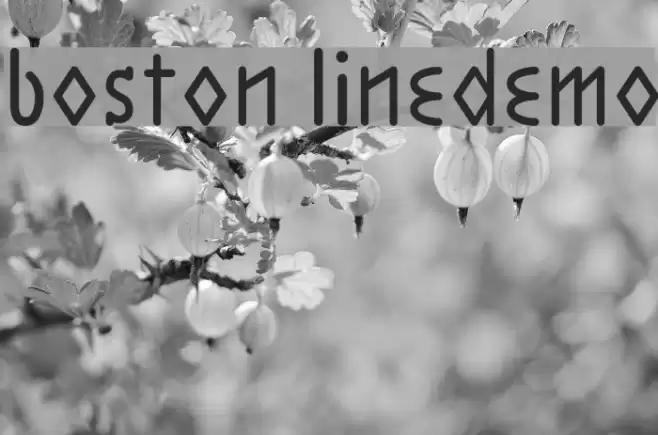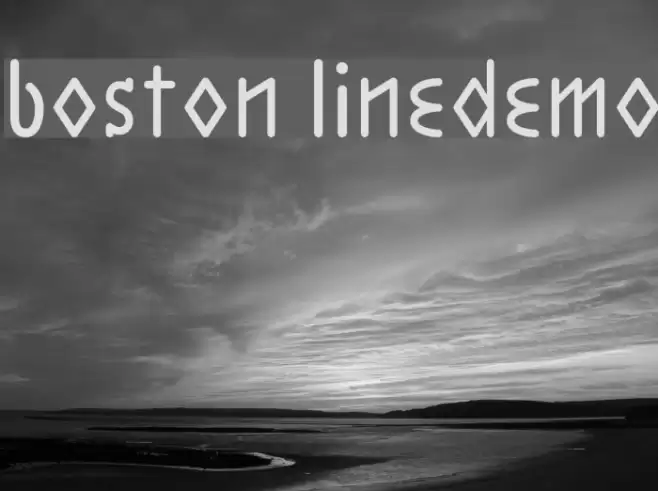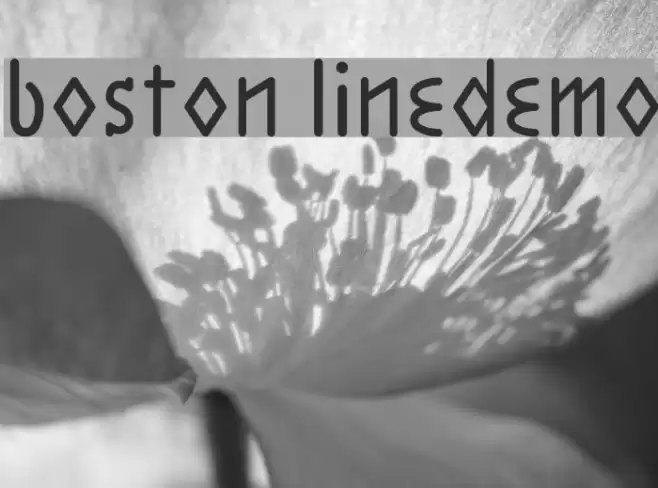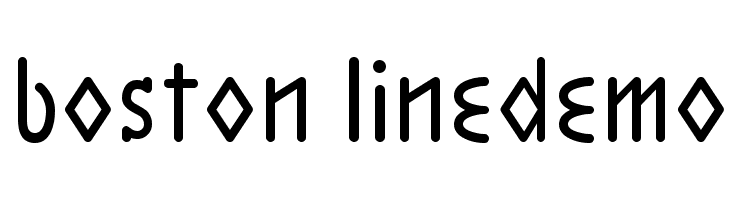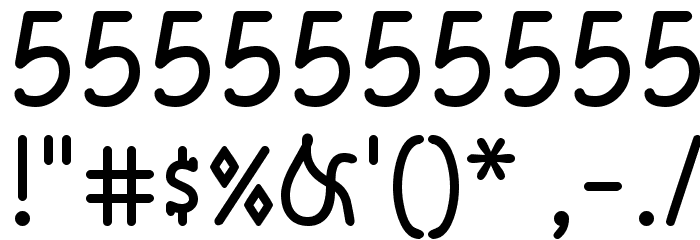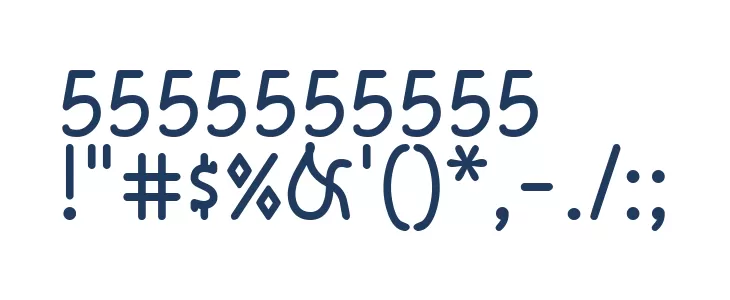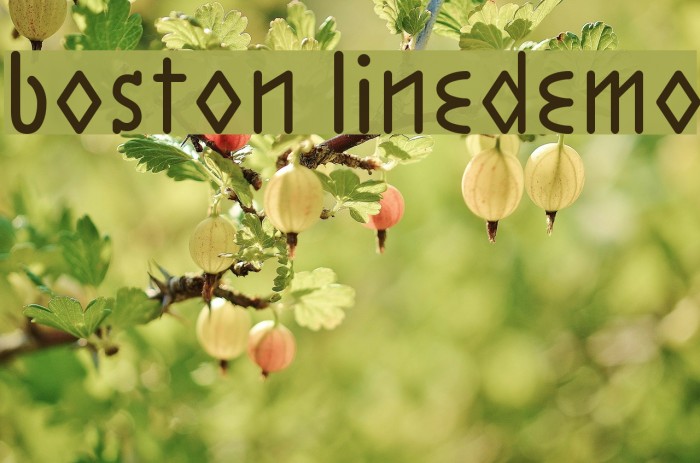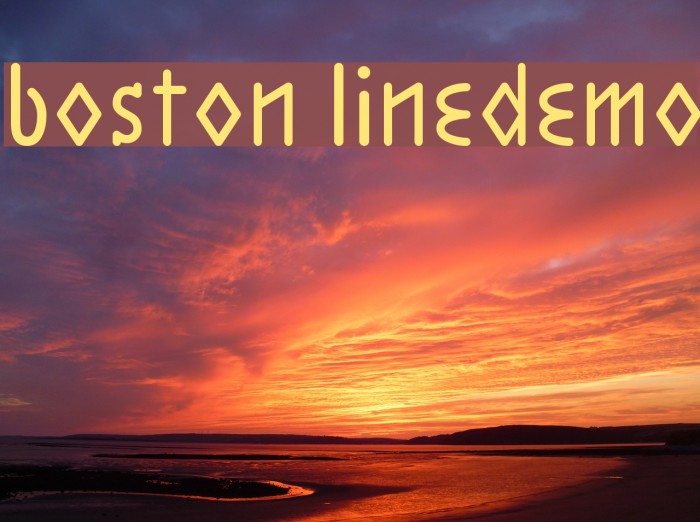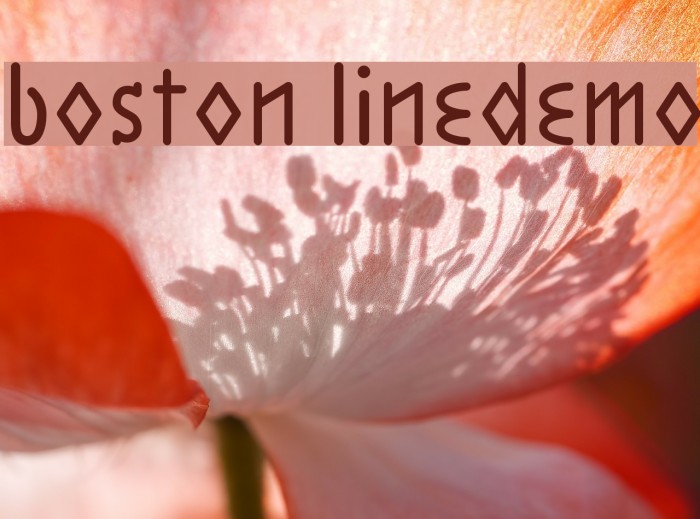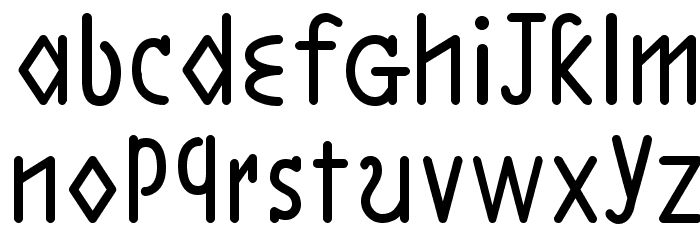
Boston LineDemo Font
Boston LineDemo Description
This font features a playful and rounded design with a unique geometric flair. The characters are crafted with smooth curves and consistent stroke widths, giving it a friendly and approachable appearance. The uppercase and lowercase letters maintain a uniform style, with distinctive shapes that add a touch of whimsy. The numbers and special characters are designed to match the overall aesthetic, ensuring cohesion across all elements. This font's clean lines and rounded edges make it versatile for various design applications, offering a modern yet slightly retro feel.
A playful, rounded font with geometric elements and consistent stroke widths from Uncategorized fonts.
- Proposed Projects: Ideal for children's books, playful branding, casual invitations, and creative posters.